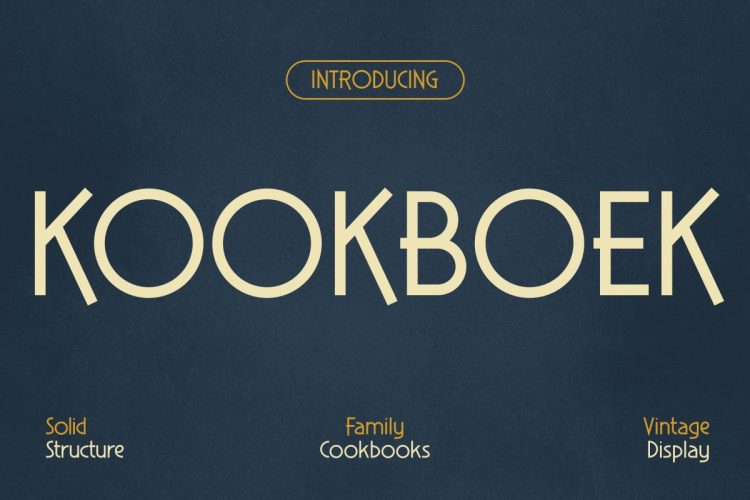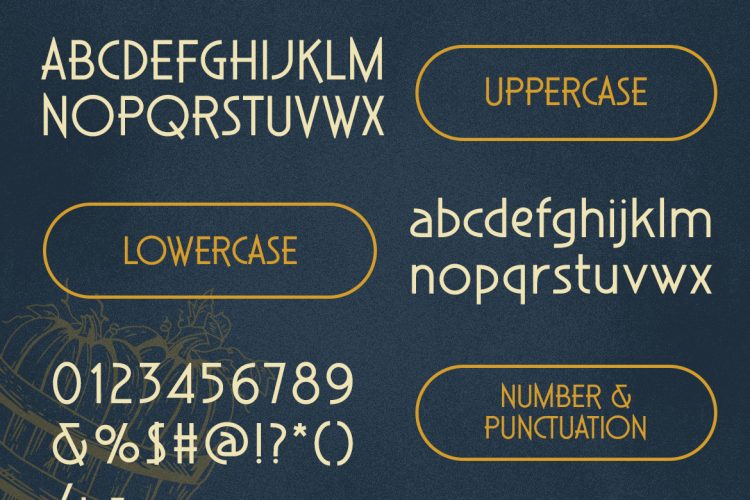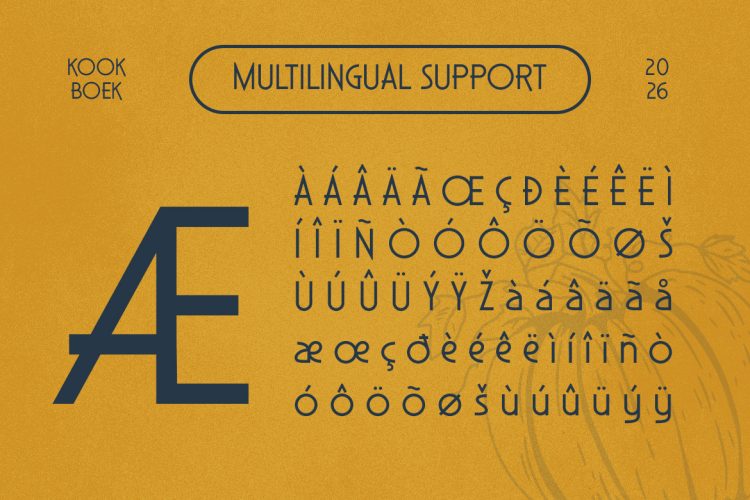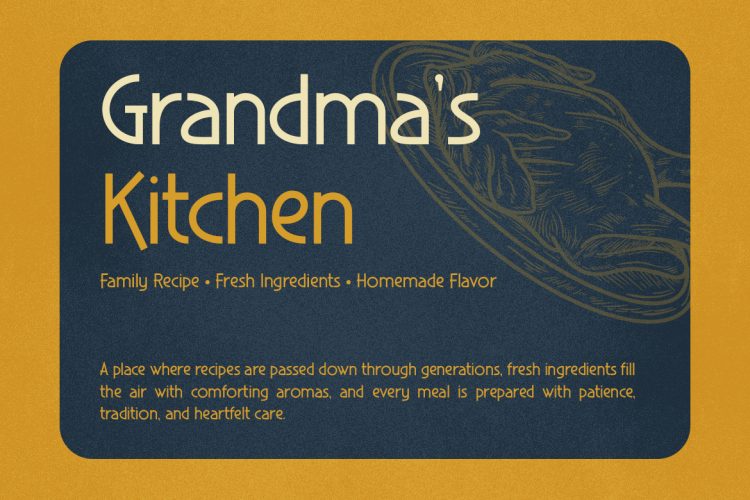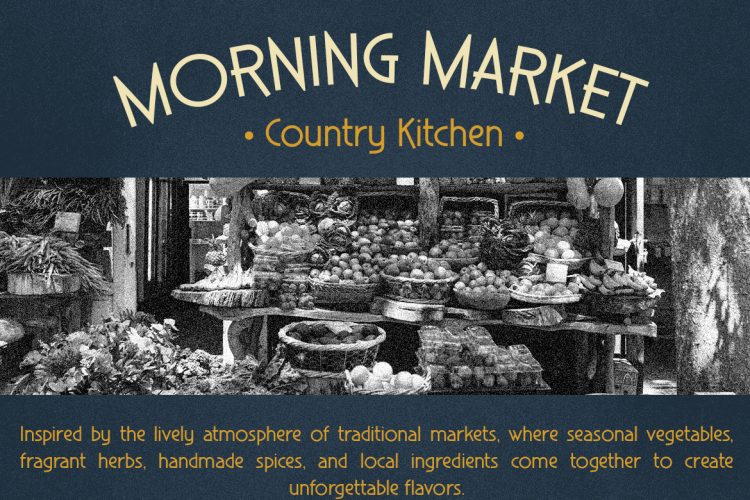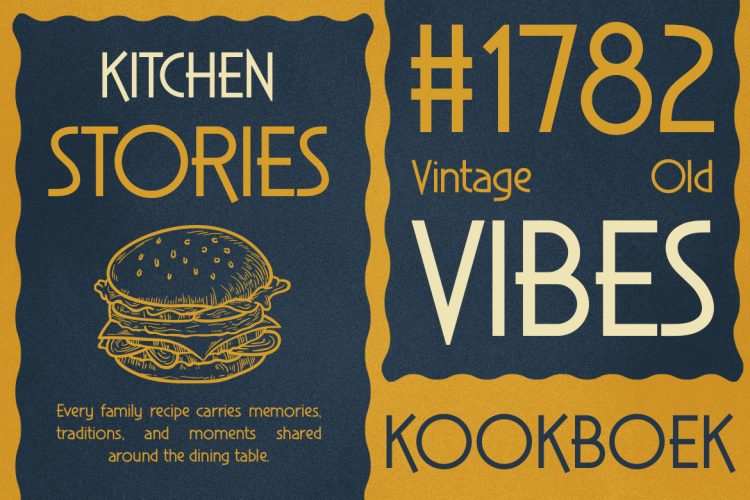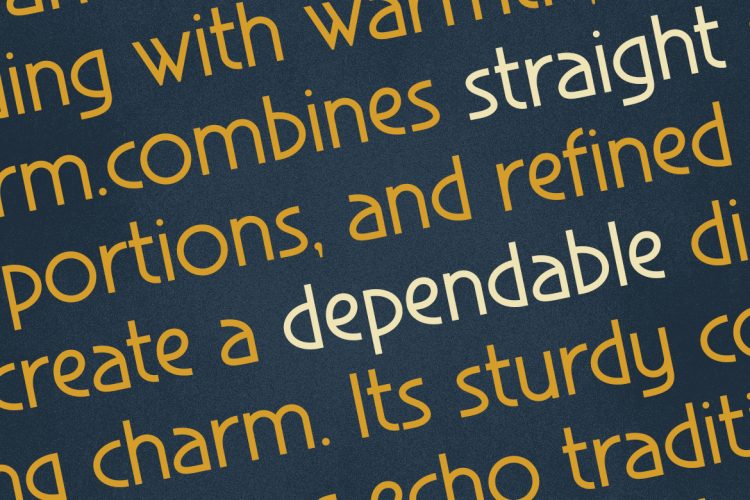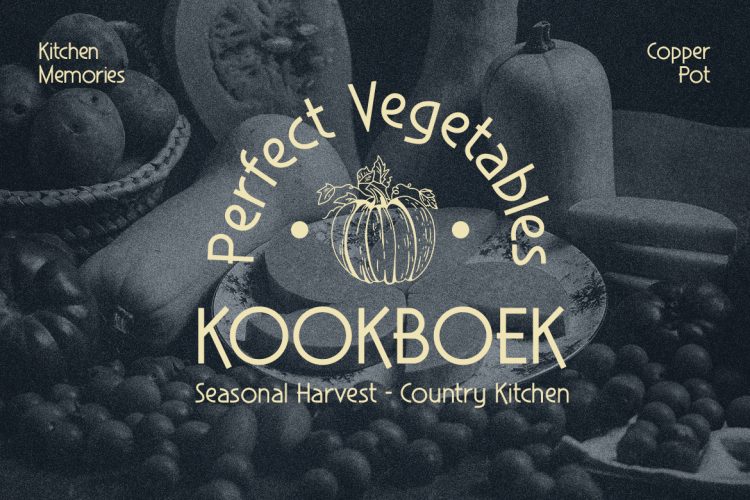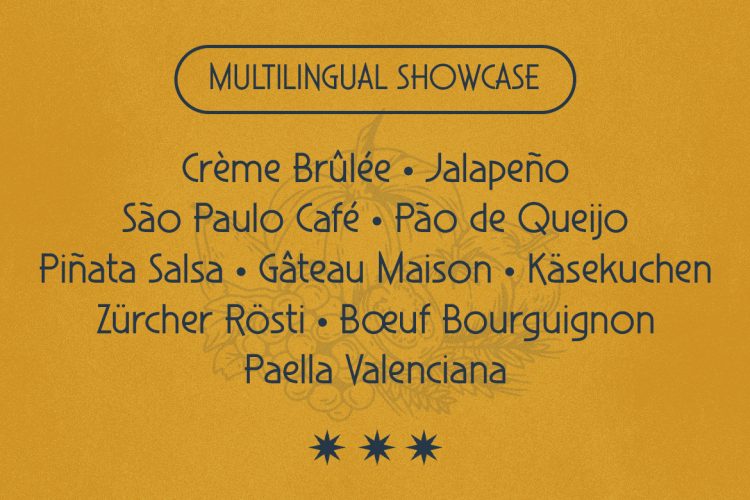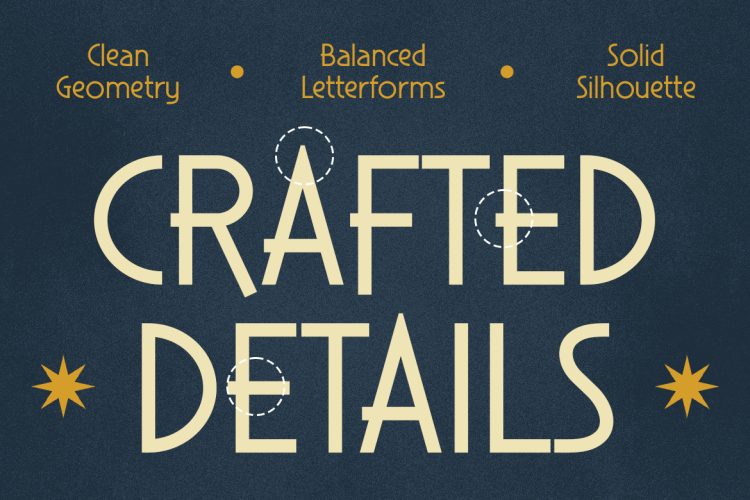
KOOKBOEK โ Cook Up Timeless Designs with Vintage Character
Retro Font KOOKBOEK blends refined vintage aesthetics with clean geometric letterforms to create a timeless display font. Inspired by classic cookbook covers and traditional market signs, it delivers an elegant yet approachable personality. Moreover, every character is carefully balanced for excellent readability. At the same time, its handcrafted details add warmth and authenticity. As a result, every headline feels memorable and full of character. Whether you design for print or digital media, KOOKBOEK brings vintage charm to every project. In addition, it includes Multilingual Support for 67 languages, making it suitable for international audiences. Therefore, you can create consistent branding across multiple markets with confidence.
Retro Font KOOKBOEK Perfect For
- Vintage Branding โ Bakeries, cafรฉs, restaurants, coffee shops, artisan products, and handcrafted food brands.
- Editorial Design โ Cookbooks, recipe cards, magazines, menus, journals, and food blogs.
- Packaging & Labels โ Organic products, gourmet packaging, specialty goods, wine labels, and retail collections.
- Marketing & Promotion โ Posters, website headers, advertisements, social media graphics, merchandise, and event campaigns.
- Furthermore, it is ideal for graphic designers, publishers, branding studios, food entrepreneurs, small business owners, and content creators. Likewise, its multilingual support makes collaboration across global markets simple and effective.
Serve Every Design with Vintage Charm